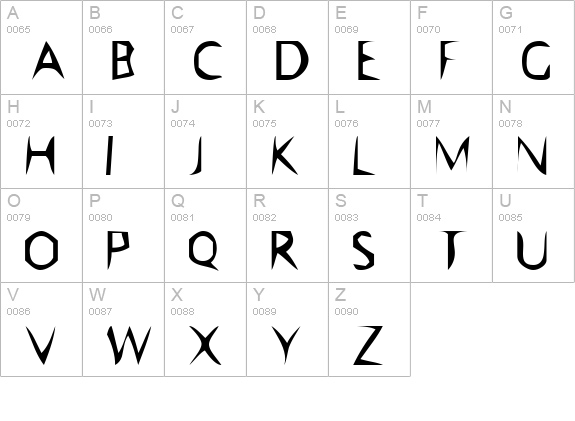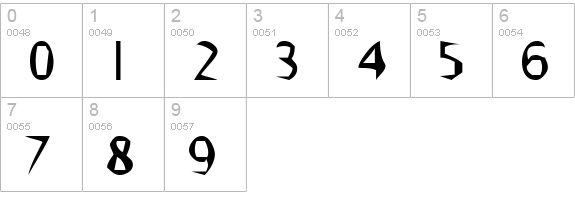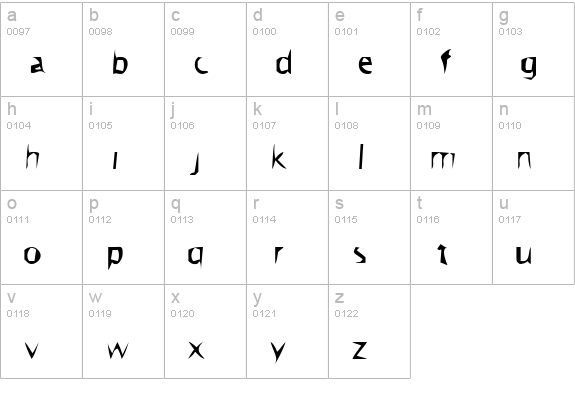
Hangover Font Details
Hangover font is a captivating and versatile typeface that will add a touch of style and personality to any design project. With its unique and eye-catching letterforms, this font is perfect for creating attention-grabbing headlines, logos, posters, and more. The Hangover font exudes a sense of modernity and playfulness, making it ideal for projects that require a contemporary and youthful vibe. Its sleek and stylish design will effortlessly elevate your designs, allowing them to stand out from the crowd. One of the best features of Hangover font is that it is completely free to download. You can easily access this font at FontsMarket.com, where you'll find a vast collection of high-quality fonts to suit all your design needs. Whether you're a professional designer or a hobbyist, this free font is a fantastic addition to your typographic toolbox. Hangover font offers a wide range of weights and styles, allowing you to experiment and create truly unique compositions. From bold and impactful headlines to elegant and refined body text, this font has got you covered. Not only does Hangover font offer aesthetic appeal, but it also ensures legibility and readability. Its carefully crafted letterforms ensure that your text is clear and easy to read, even at smaller sizes. This makes it suitable for a variety of applications, from print to digital media. In summary, Hangover font is a remarkable typeface that combines style, versatility, and legibility. Its captivating and modern design will make your designs pop, while its free availability at FontsMarket.com ensures accessibility for all. Download Hangover font today and unleash your creativity with this stunning and impactful typeface.